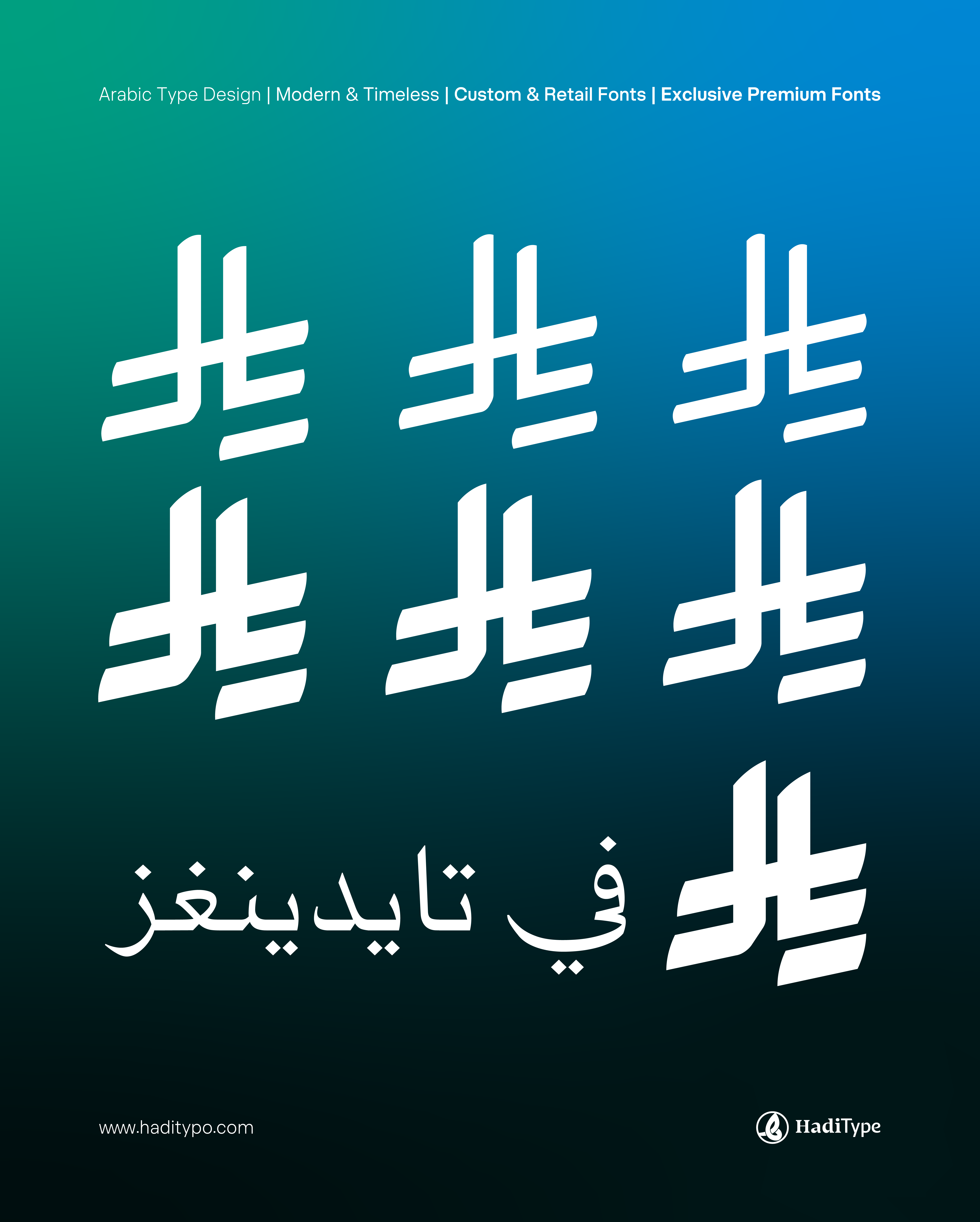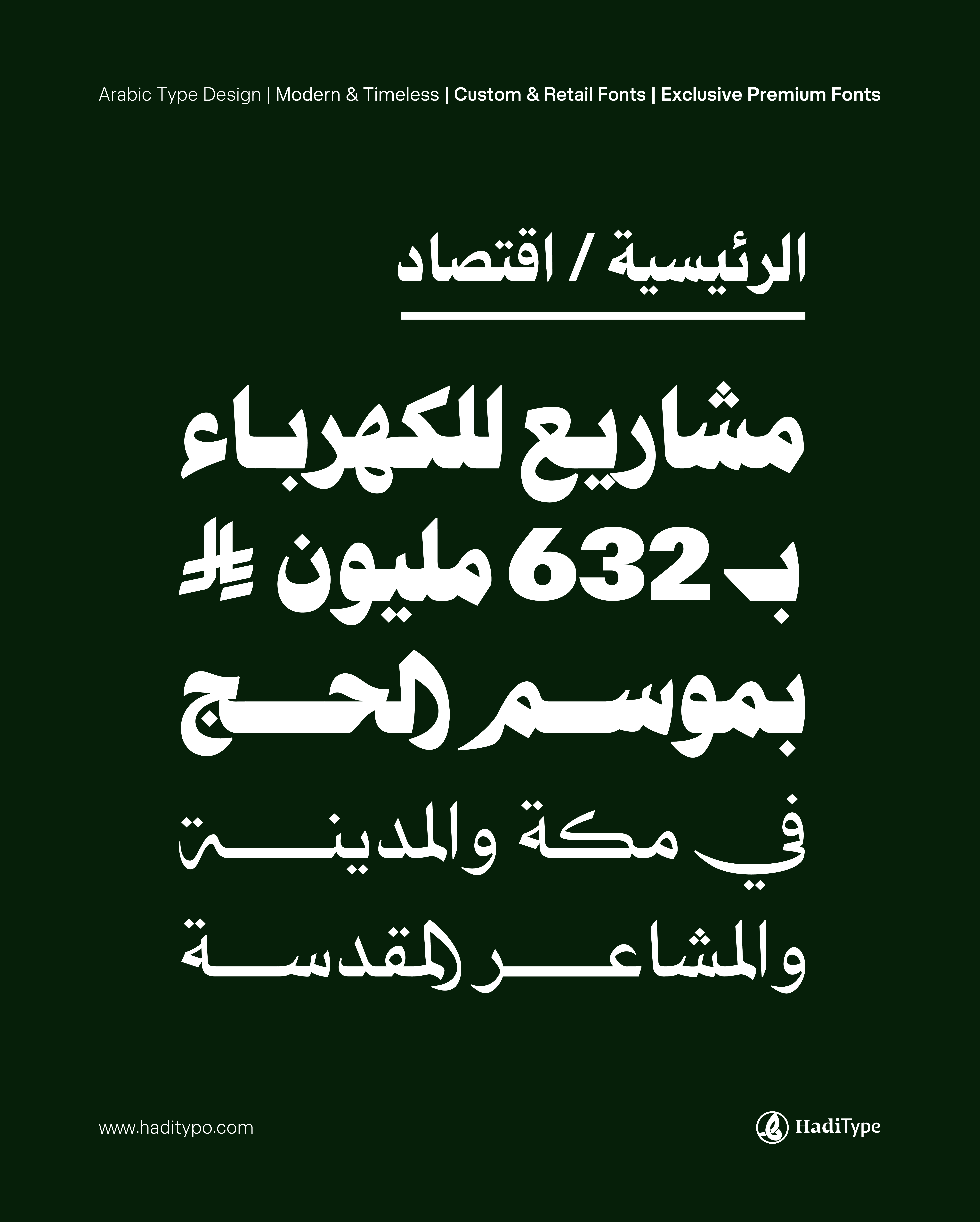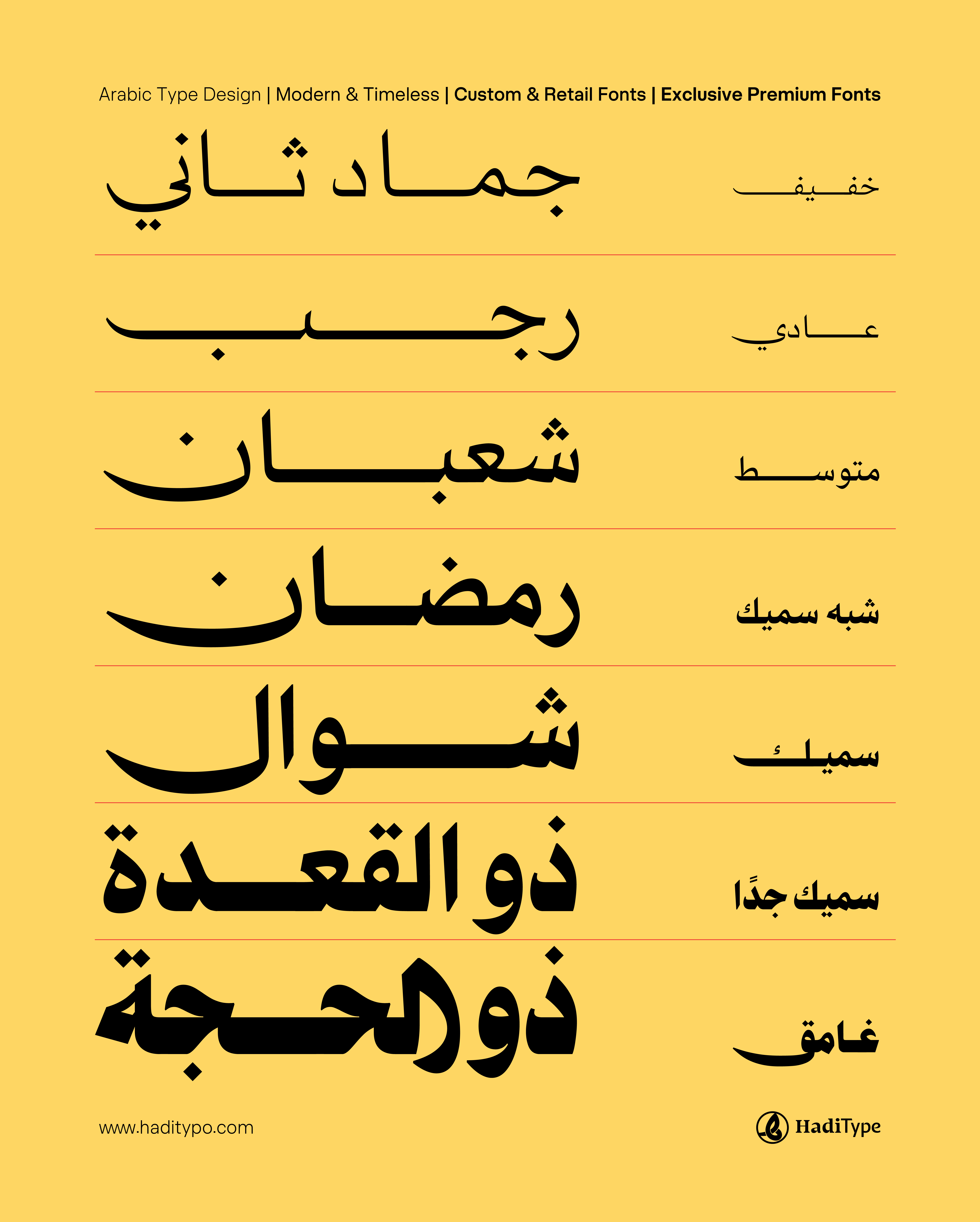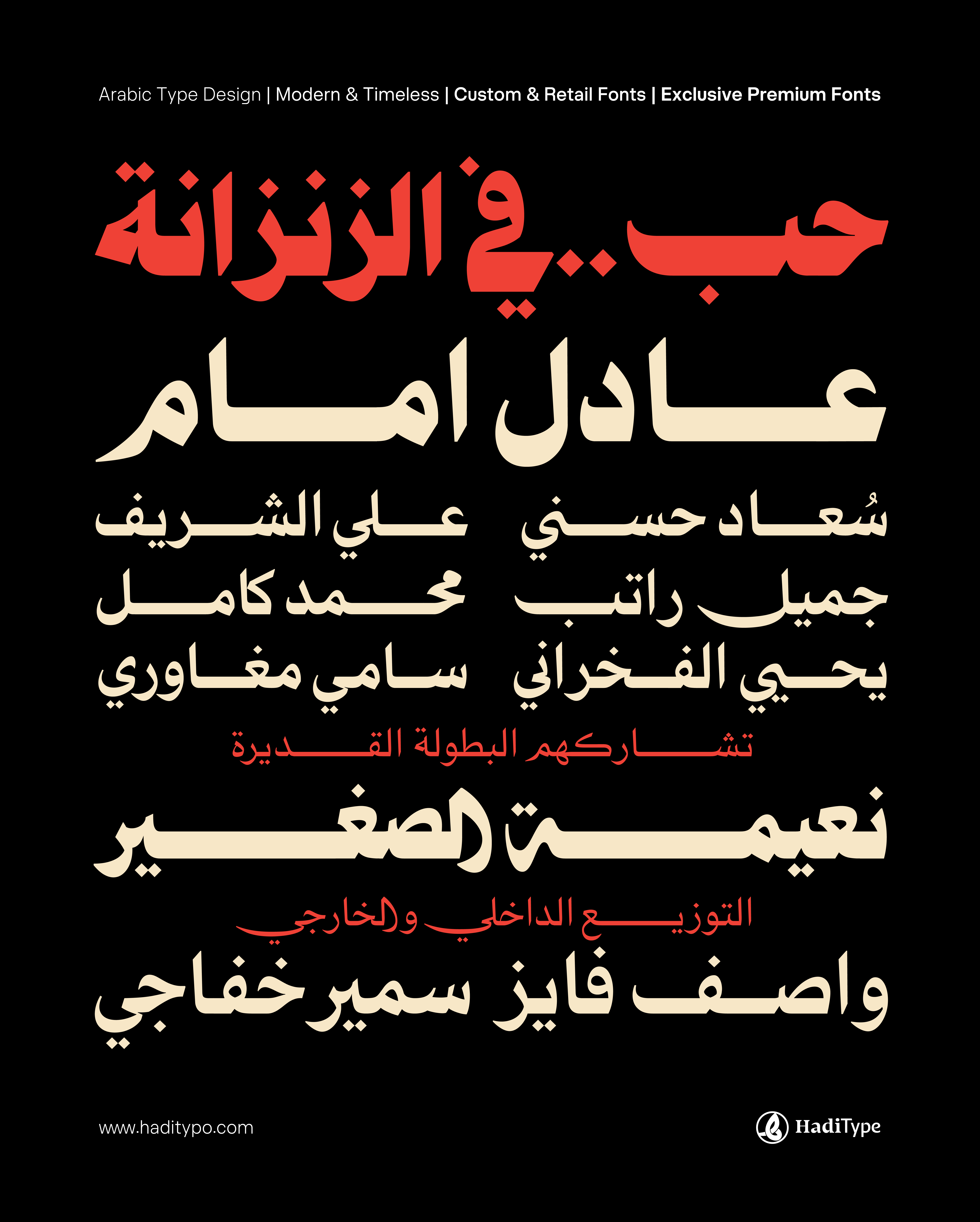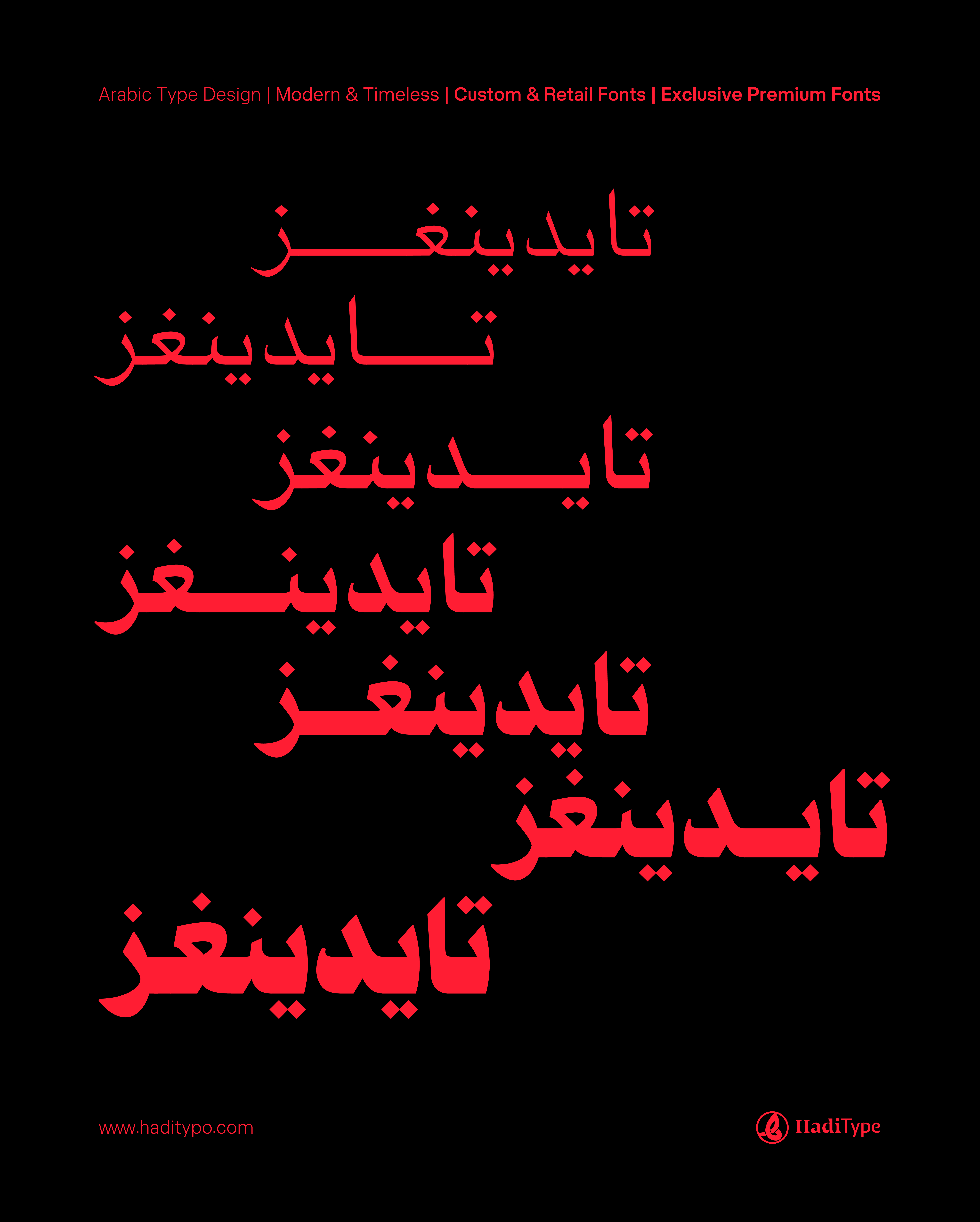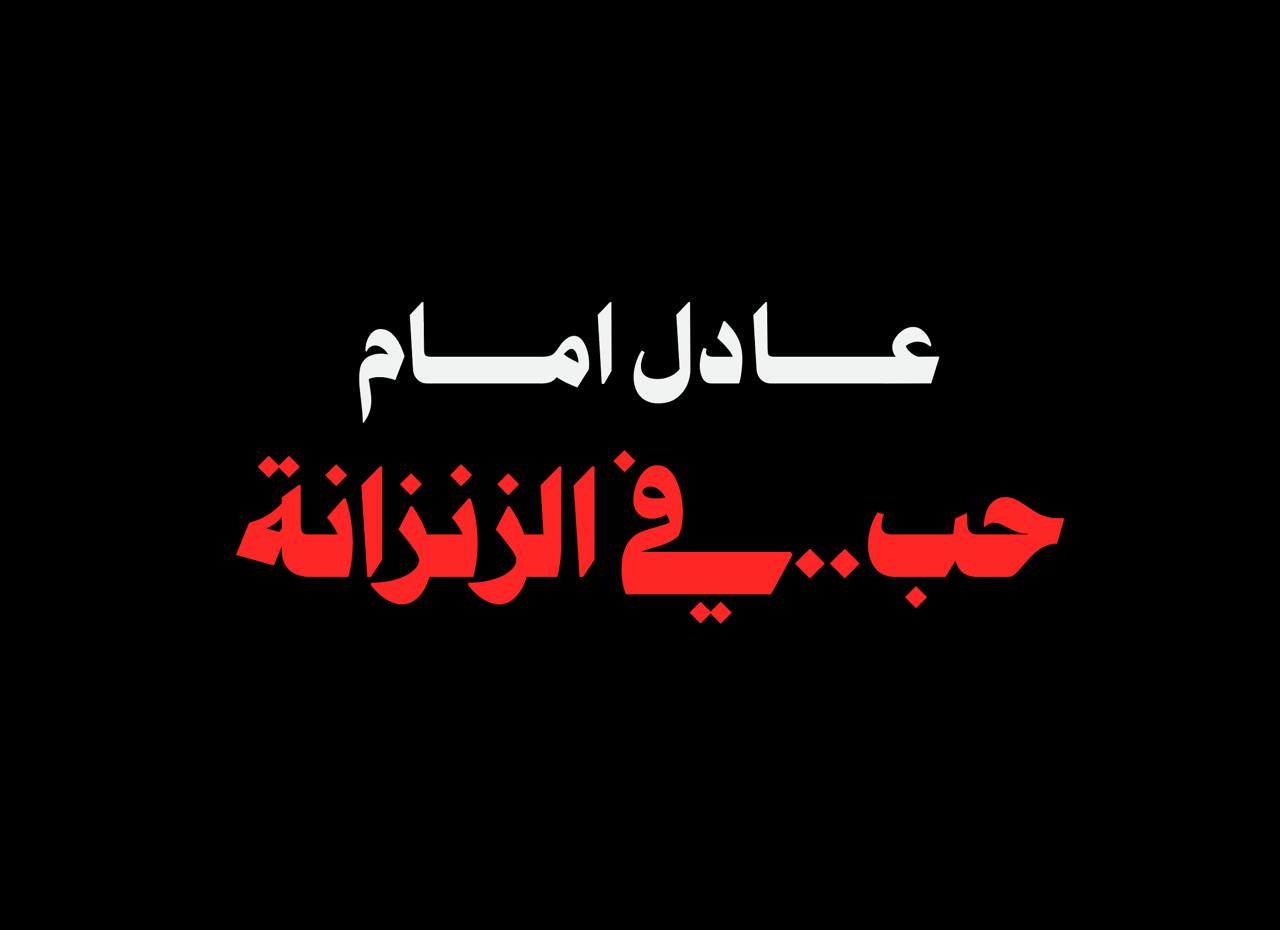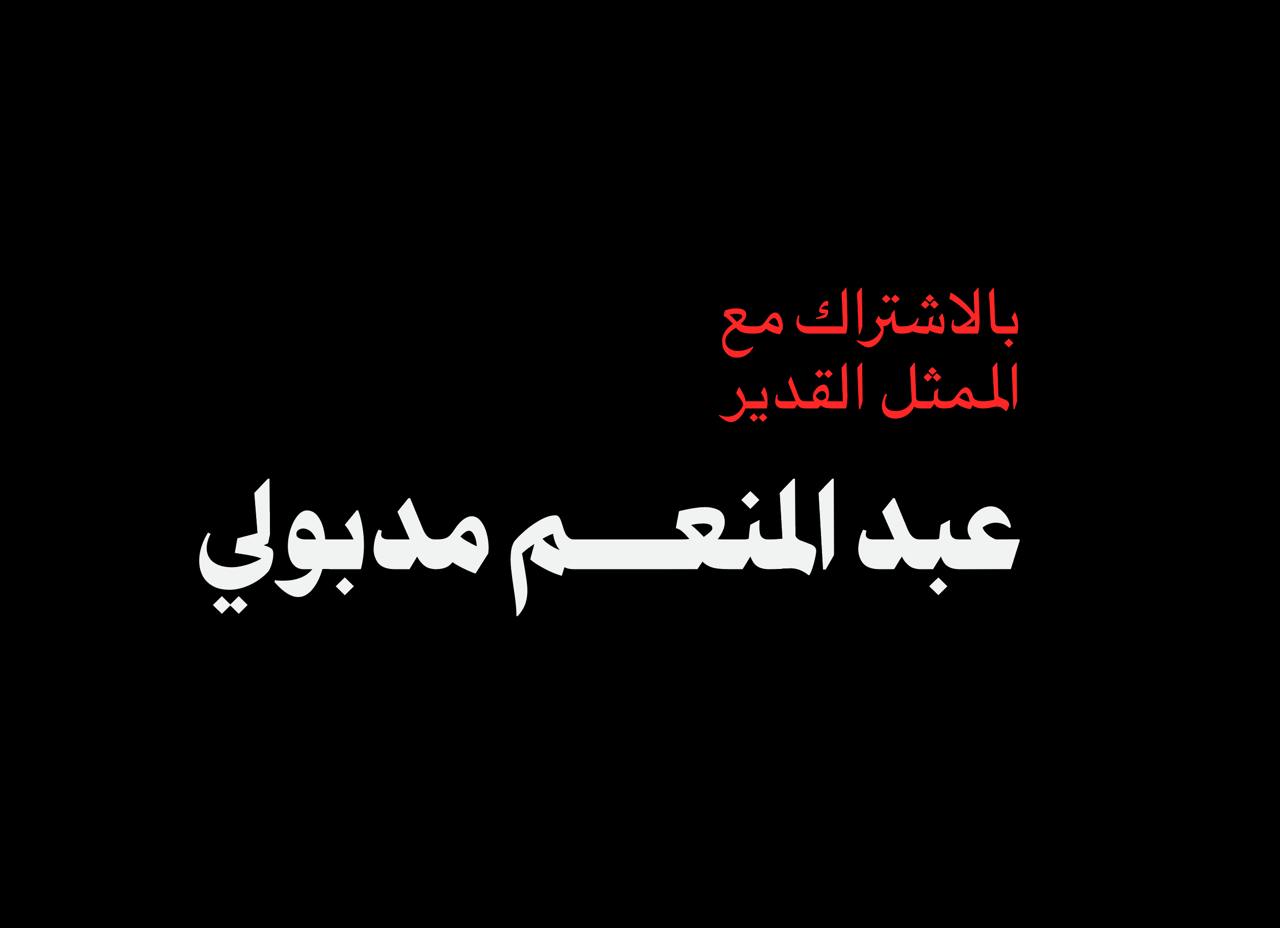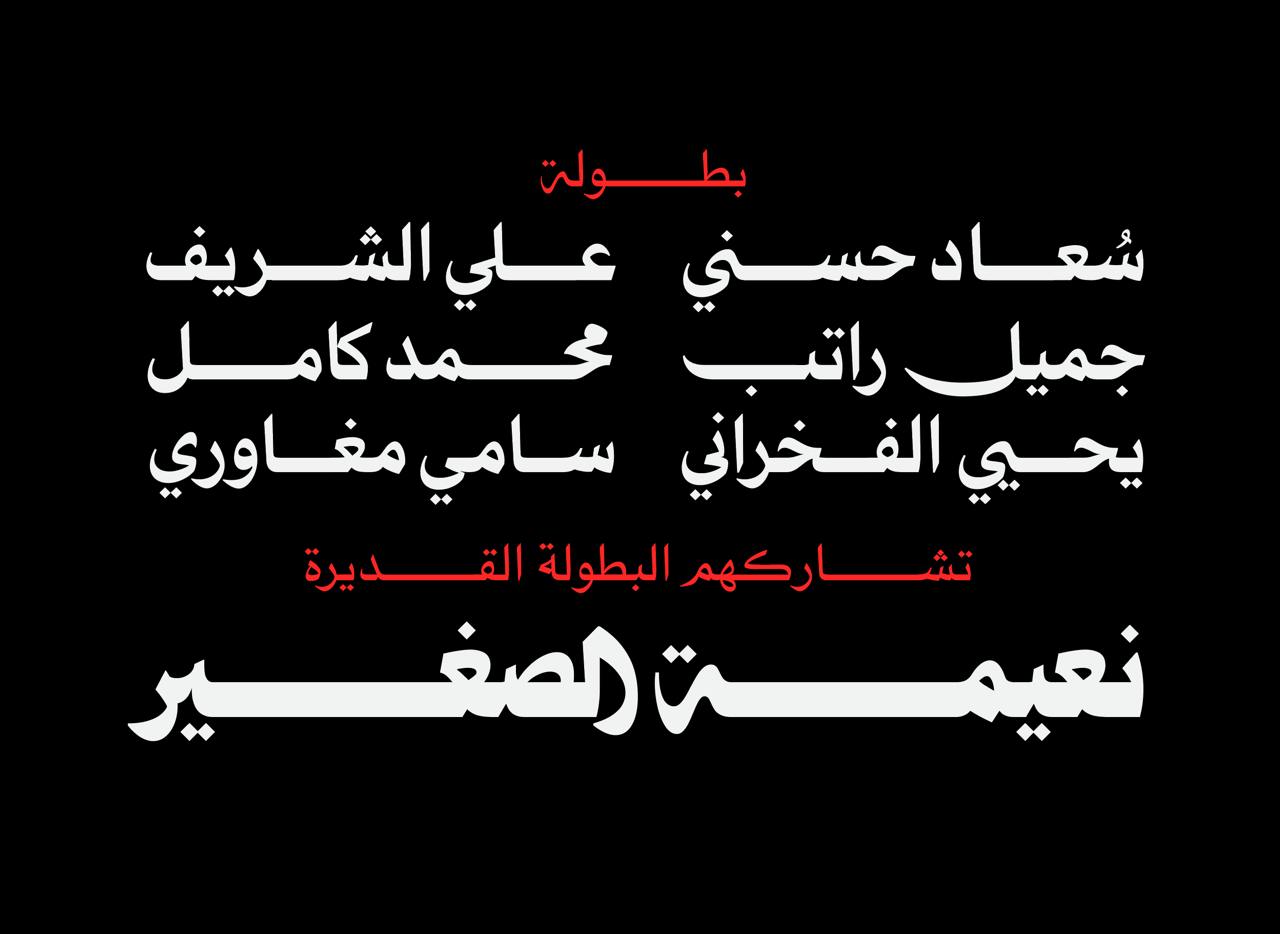
HT Tidings Pro
Tidings is a contemporary Arabic Naskh typeface that blends the authenticity of traditional structure with the precision of modern typographic rhythm. It is built on a clear and steady baseline, offering excellent legibility for contemporary publishing while preserving the fluidity and beauty of classical Naskh.
Tidings is designed as a variable font, featuring two primary axes:
- Weight Axis: Ranges from ultra-light to heavy, giving designers full flexibility to choose the perfect weight without the need to install multiple separate files.
- Swsah Axis: Allows control over the length of descending strokes in letters such as ي، ن، ل, enabling better adaptability to different layouts and enhancing visual harmony.
With these capabilities, Tidings offers an effective solution to the limitations of traditional Arabic fonts, which were often released in a single static weight — freeing designers to explore a broader range of expressive and typographic uses.
OpenType Features: ccmp, Contextual Alternates, Stylistic Alternates, Standard Ligatures, Swash, Dictionary Ligatures, Required Ligatures.
Designer: Muhammed Hadi
Foundry: HadiType Foundry